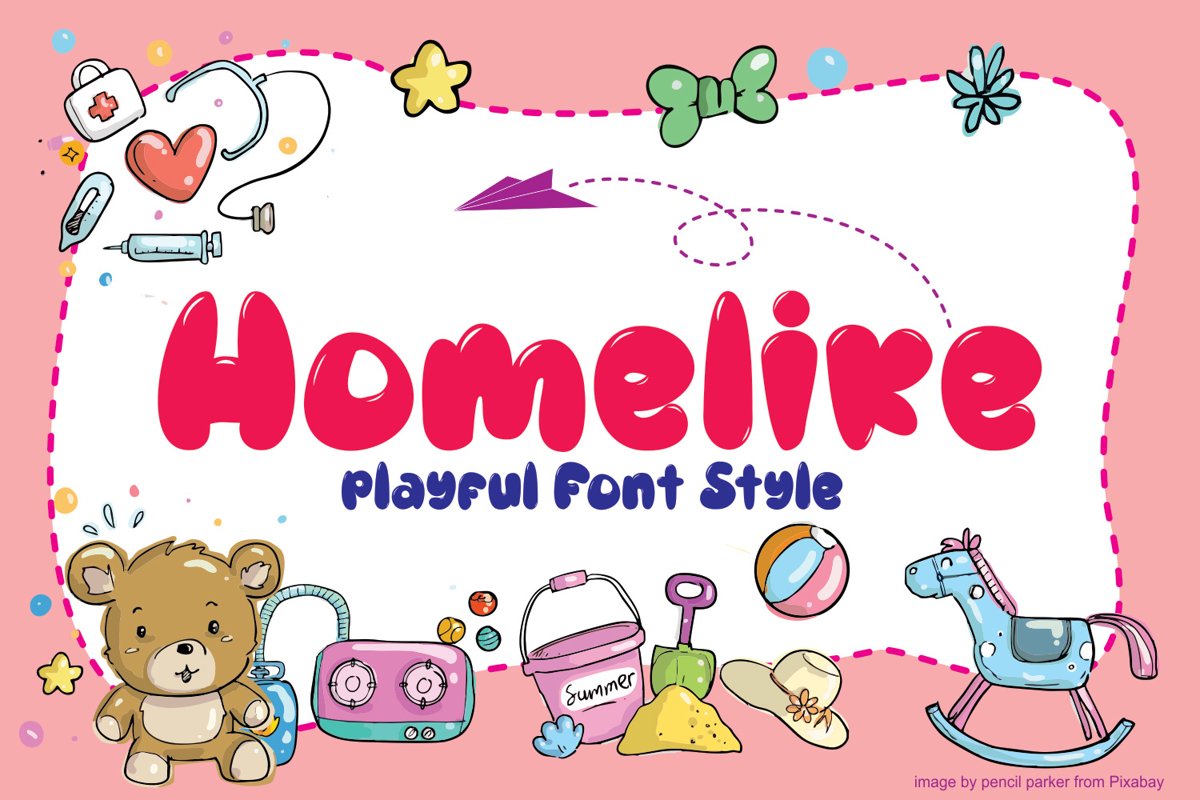
Homelike
Homelike is a cheerful, simple, and funny font, very suitable for brands and logos with children's themes
Logos Invitation Card Toy Product Brand Book Title Song Title Film Title